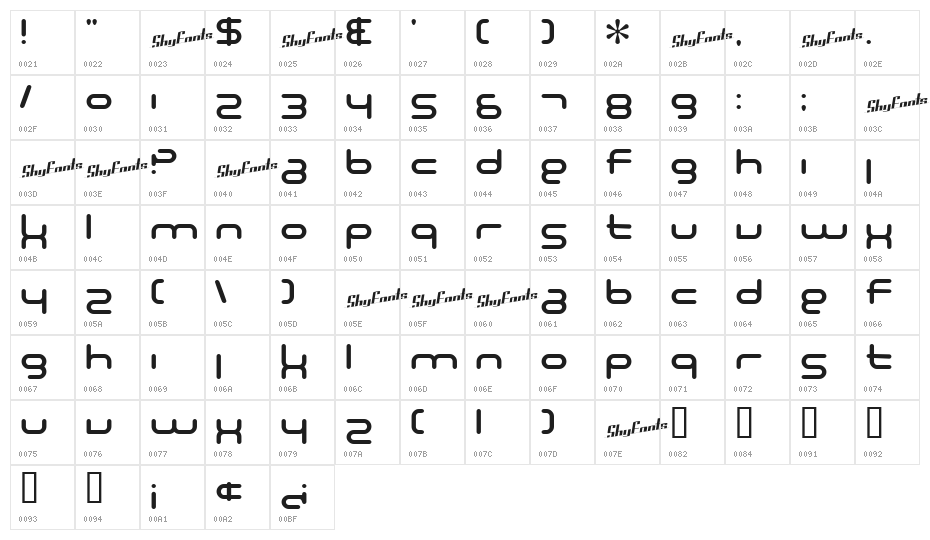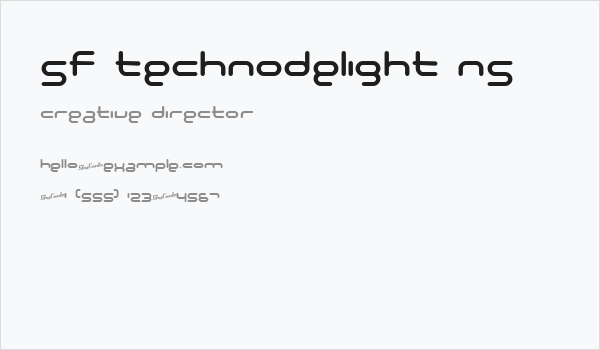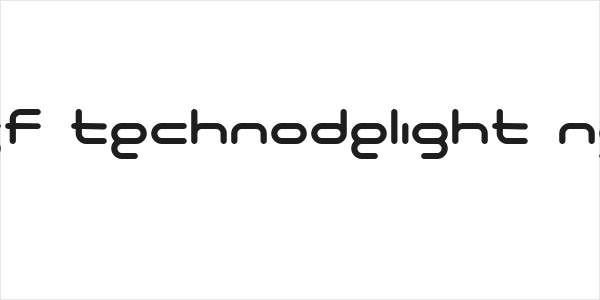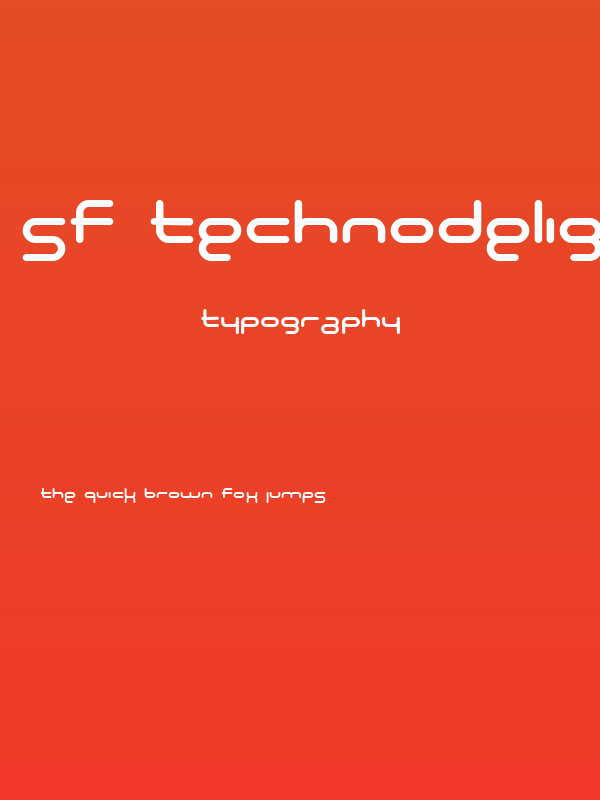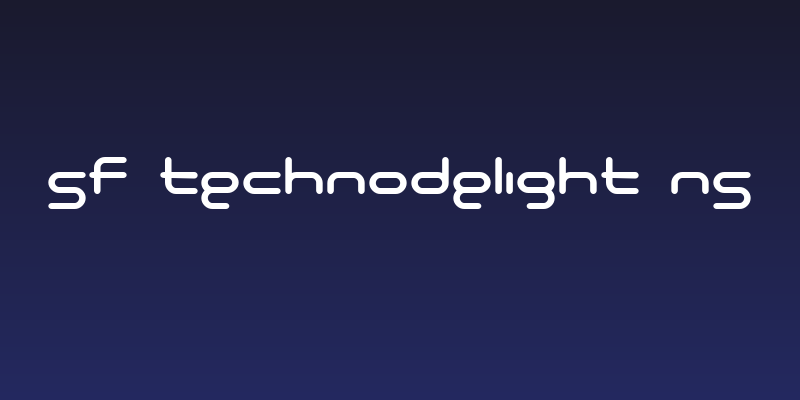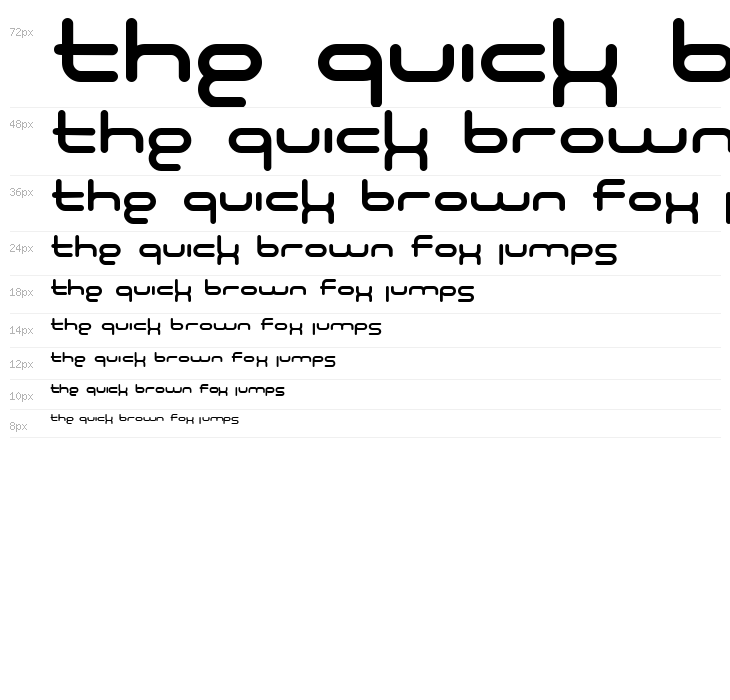
SF Technodelight NS Font
SF Technodelight NS Description
This font features a futuristic and sleek design, characterized by its rounded edges and geometric shapes. The letters are uniform in height, creating a cohesive and modern appearance. The font maintains a consistent line weight throughout, giving it a clean and uncluttered look. Its distinct style is reminiscent of digital or technological themes, making it suitable for projects that require a contemporary and innovative aesthetic. The characters are evenly spaced, ensuring readability while maintaining a unique visual appeal. This font's design is both functional and stylish, making it versatile for various applications.
| Use Case | Logos, Headlines, Digital interfaces |
| Proposed Projects | Ideal for tech branding, digital interfaces, modern posters, and sci-fi themed designs. |